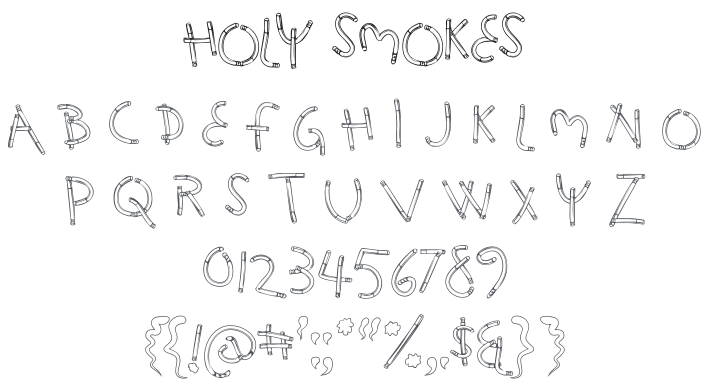
Holy Smokes Font
About Holy Smokes
Holy Smokes is a wonderfully absurd novelty display typeface where every single letter is constructed entirely from cigarettes — bent, arranged, and stacked into readable shapes with deadpan commitment. The result is quirky, retro, and oddly charming. Perfect for vintage tobacco-themed designs, retro packaging parody, novelty posters, quirky editorial headlines, and any project that needs a knowing wink of humour.